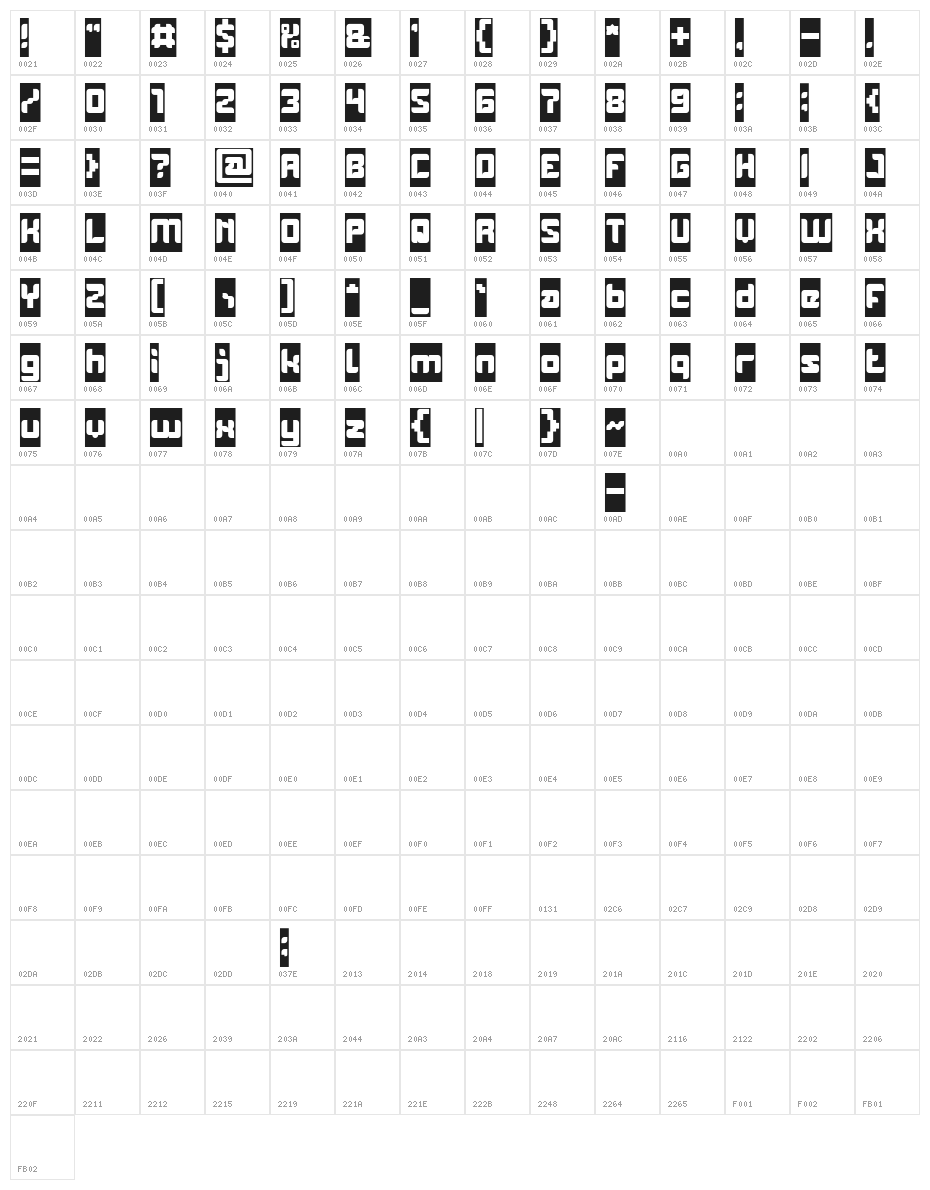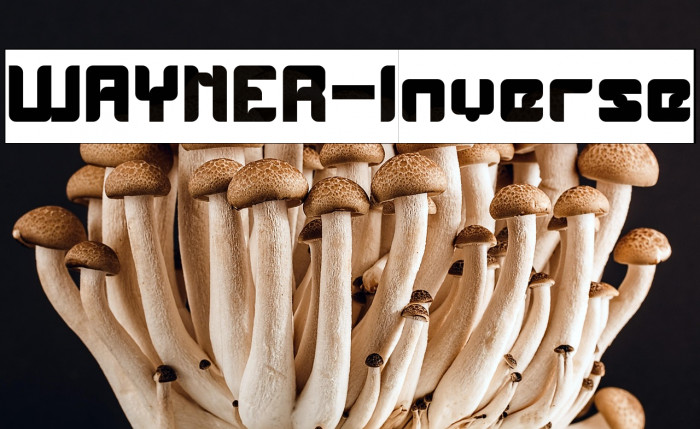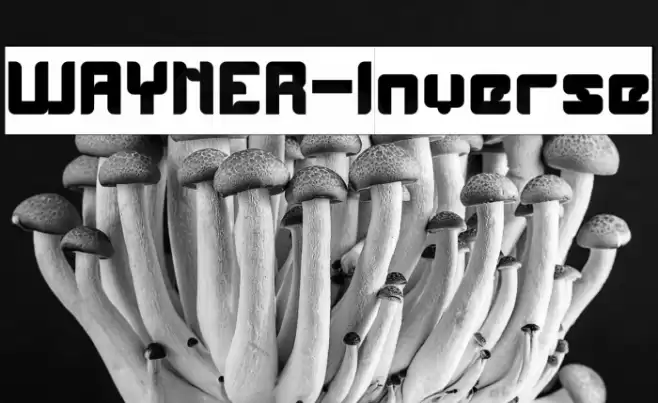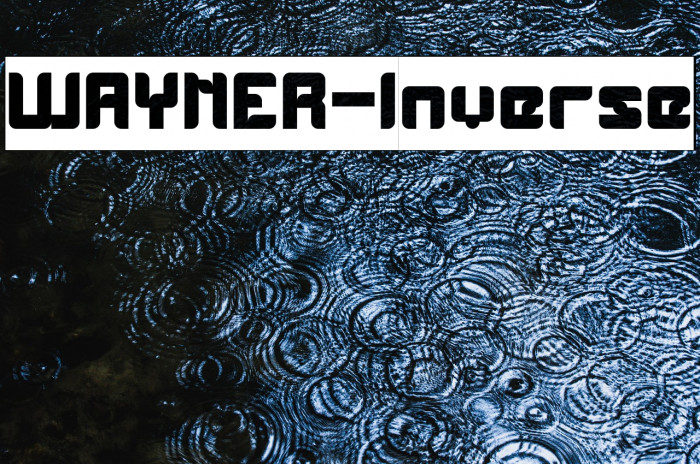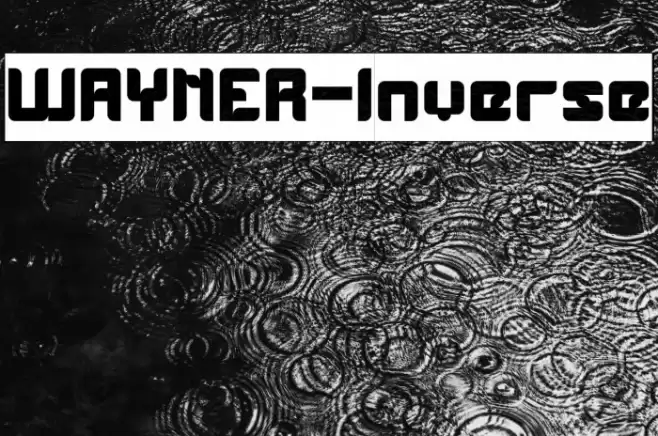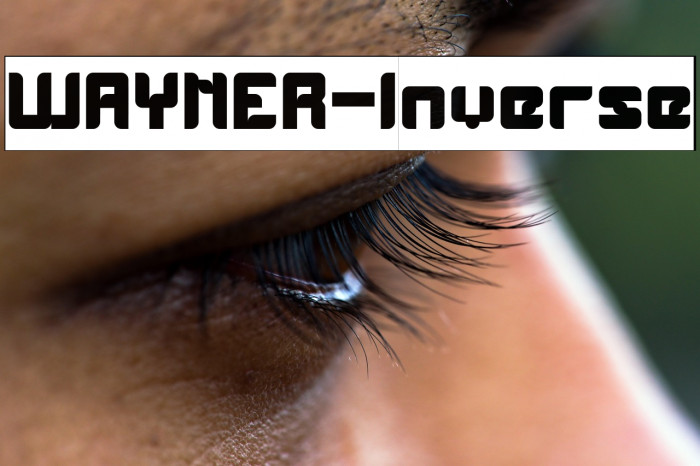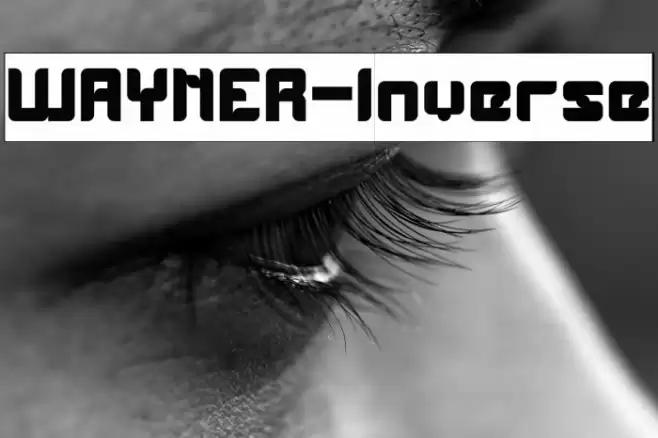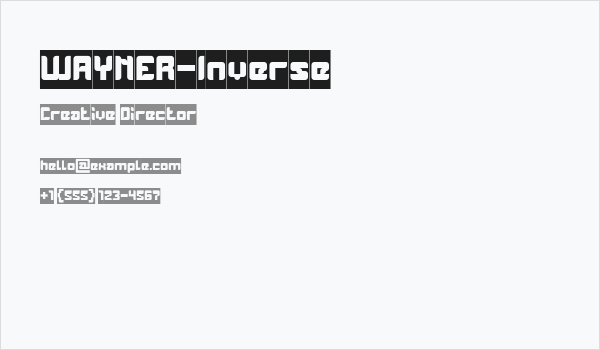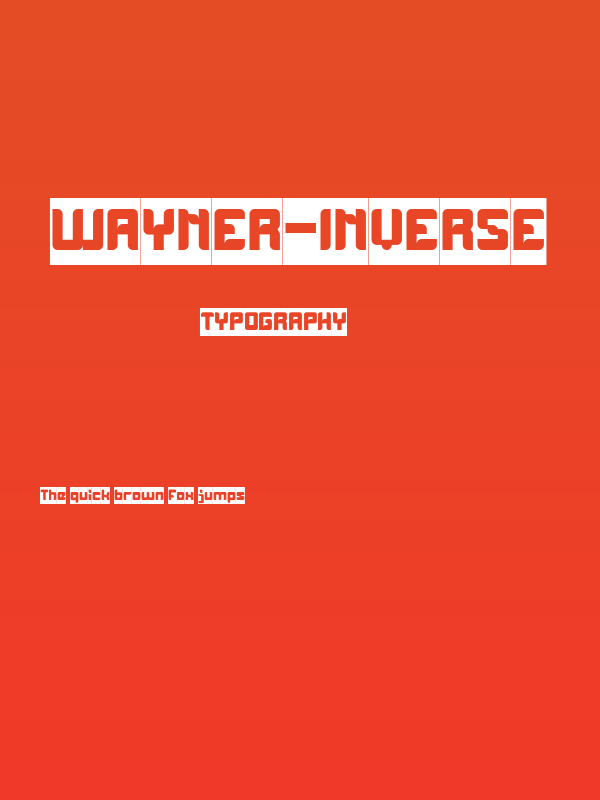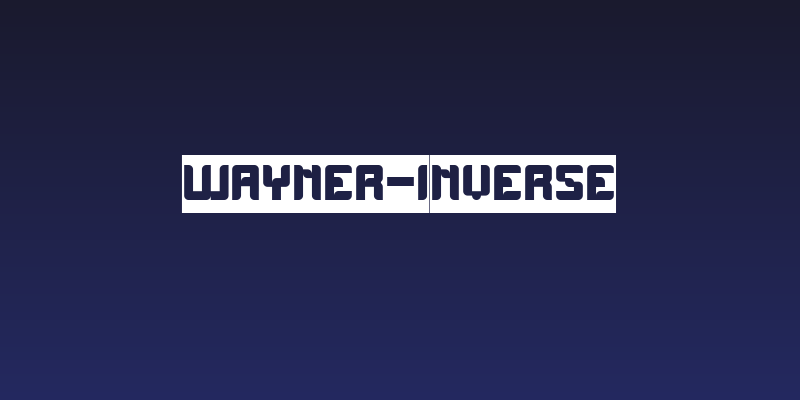
WAYNER-Inverse Font
WAYNER-Inverse Description
This font features a bold, geometric style with a modern and futuristic aesthetic. The characters are constructed with thick, uniform strokes, creating a strong visual impact. The design incorporates rounded edges and a blocky structure, giving it a distinctive and playful appearance. The uppercase and lowercase letters maintain a consistent style, with the lowercase letters mirroring the uppercase in form but with a slightly reduced height. Numbers and special characters follow the same design principles, ensuring a cohesive look across all elements. The font's unique style makes it suitable for projects that require a bold and eye-catching typeface.
| Proposed Projects | Ideal for branding, posters, video game graphics, and futuristic-themed designs. |